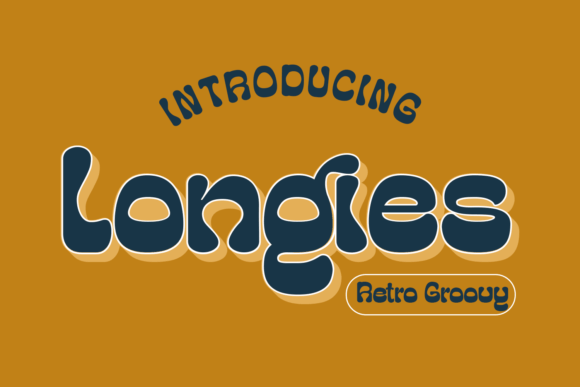
Longies Font
Enter the world of vintage appeal and contemporary charm with Longies, the spellbinding display font that captures the essence of retro groovy design. Crafted by Figstype, this font is a tribute to the golden era of fashion and art, infused with a modern touch that resonates with today's style-savvy audience.
Unleash your creativity with Longies' unique groovy aesthetics and mesmerizing shadow monoline feature. It's the perfect muse for apparel designers seeking to evoke a sense of nostalgia and individuality in their creations. Imagine your designs adorned with the retro charm of Longies, captivating every eye with its timeless appeal.
Whether you're spinning vintage-inspired narratives on tees and hoodies or seeking to imbue accessories with a touch of retro elegance, Longies is the perfect partner for your artistic vision. Its versatility transcends specific design niches, making it a must-have for designers seeking to add depth and character to their work.
With Longies as your creative companion, your apparel designs will transcend the ordinary and become extraordinary. Each stitch, each design element will speak volumes, carrying the wearer back in time while firmly grounding them in the present. Embrace the allure of the past with Longies and watch your creations shine with a brilliance that's both timeless and captivating.
So, step into the world of Longies, the font that embodies the essence of vintage with a contemporary twist. Let your designs dance to the beat of nostalgia, enchant your audience with timeless appeal, and leave an indelible mark on the world of fashion and art. Choose Longies today and embark on a design journey that's both evocative and utterly unforgettable.